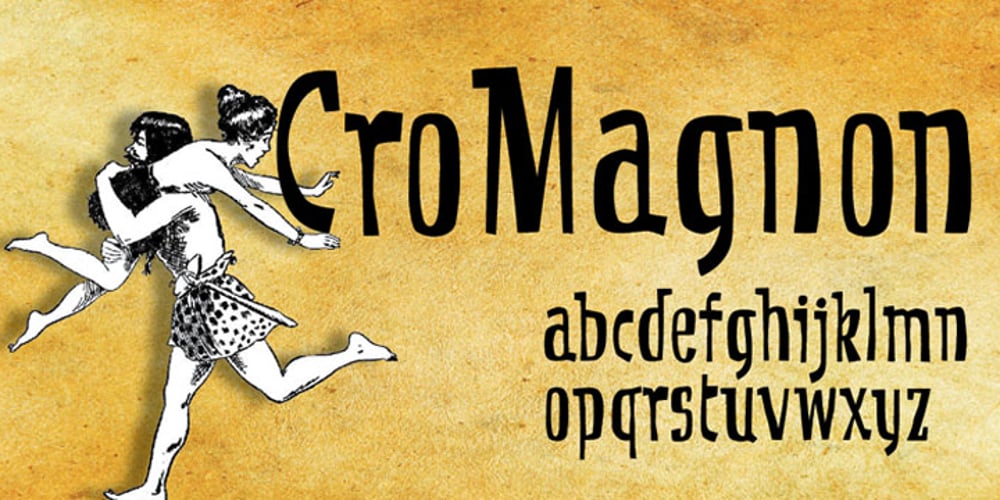
CroMagnon
CroMagnon font
CroMagnon Font Family was designed by Cecelia Harris and published by Letters by Wordsworth. CroMagnon contains 1 styles and family package options. CroMagnon began as an experiment with breaking the rules – crossbars thick, downstrokes thin – and evolved into a funky, sassy font (a little like the designer). CroMagnon offers a nice mix of edginess with respectability. There are alternates for almost all of the lowercase letters which keep the font fresh and fun.